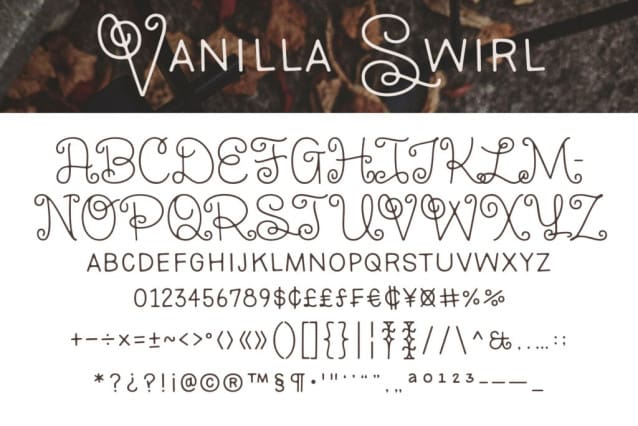
Vanilla Swirl Font
Vanilla Swirl font is a rustic handmade font with delicate uppercase letters. Suitable for posters or signs where you want to create a rustic vintage feel.